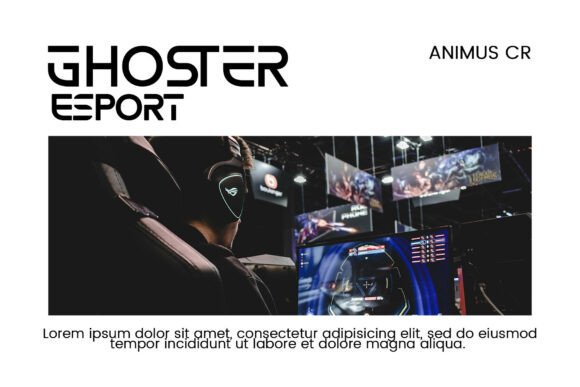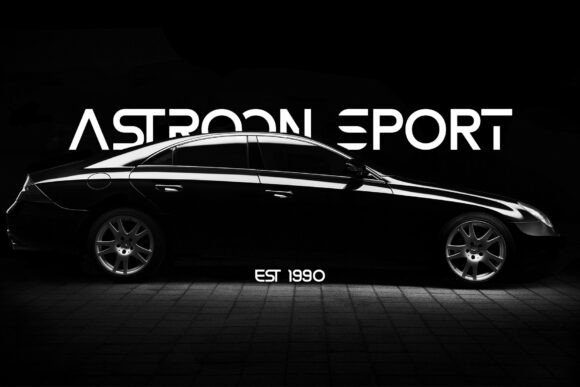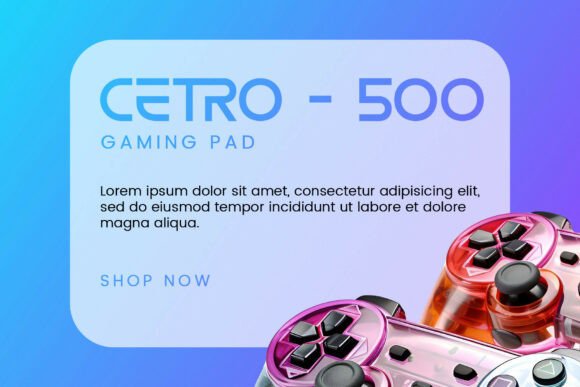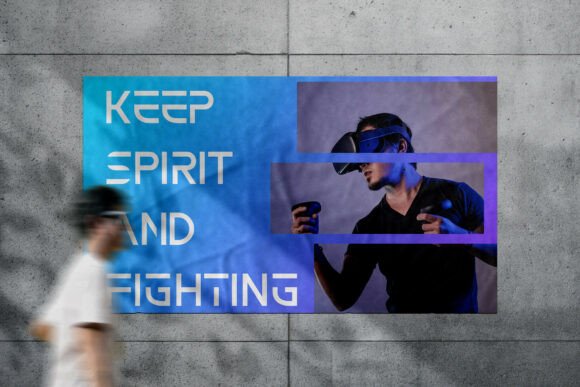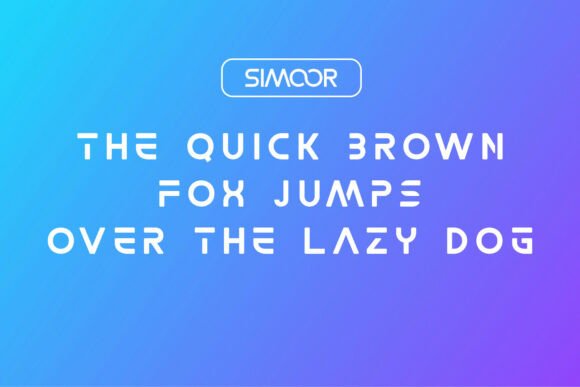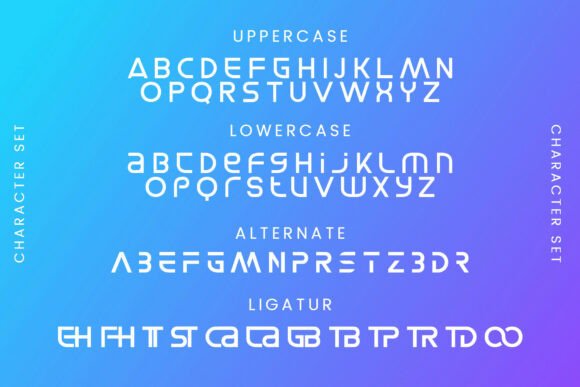
Introduction to Simoor Font
Step into the future of design with the Simoor font, a cutting-edge display typeface engineered for high-velocity visual impact.
This Simoor typeface breaks away from traditional conventions with its bold, geometric structure and unique stenciled cuts that evoke the sleek lines of a luxury sports car or advanced aerospace technology Every character in the Simoor font is a statement piece, featuring ultra-wide proportions and sharp, minimalist angles that communicate innovation, power, and high-performance precision.
Key Features of Simoor Font